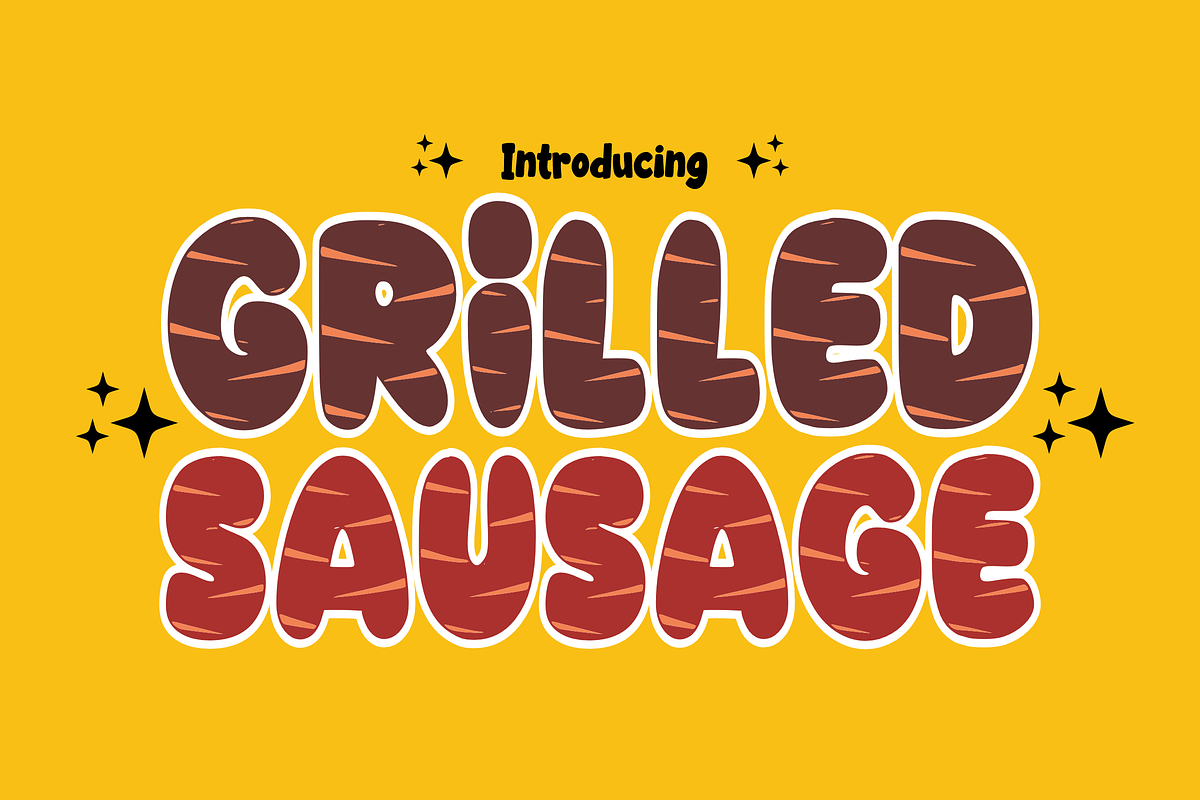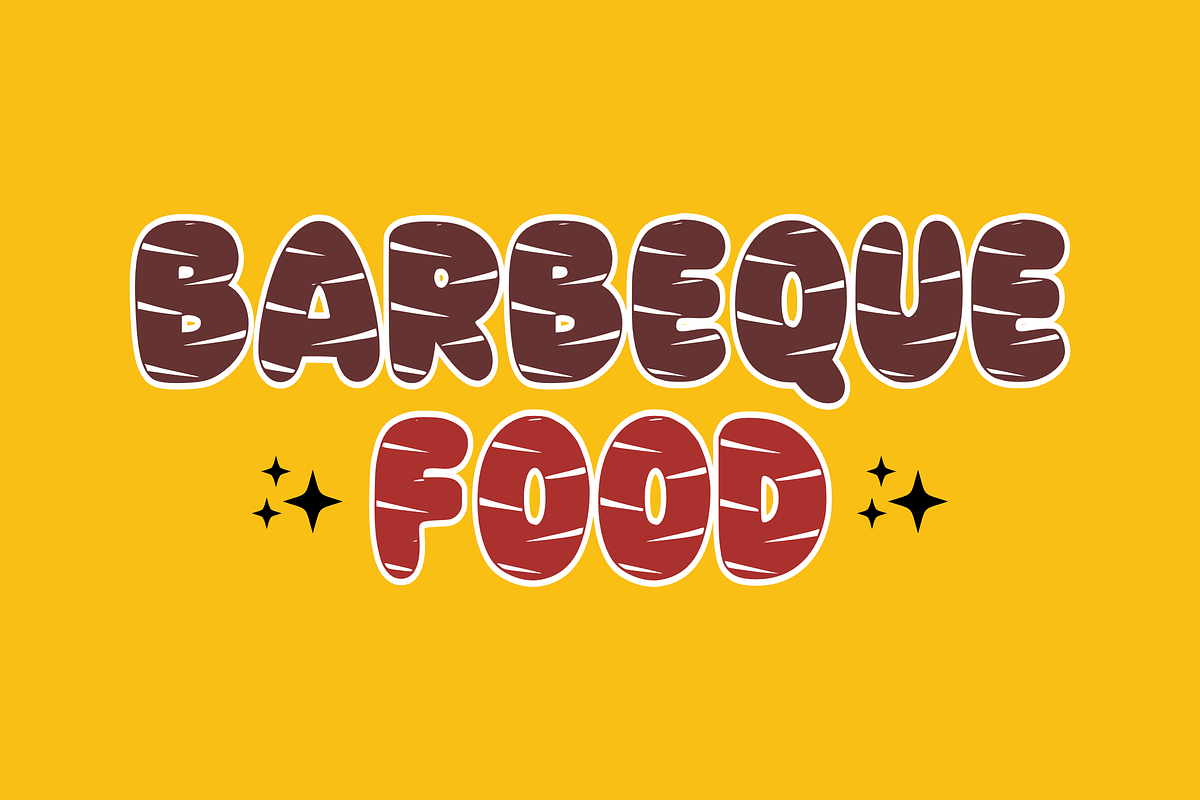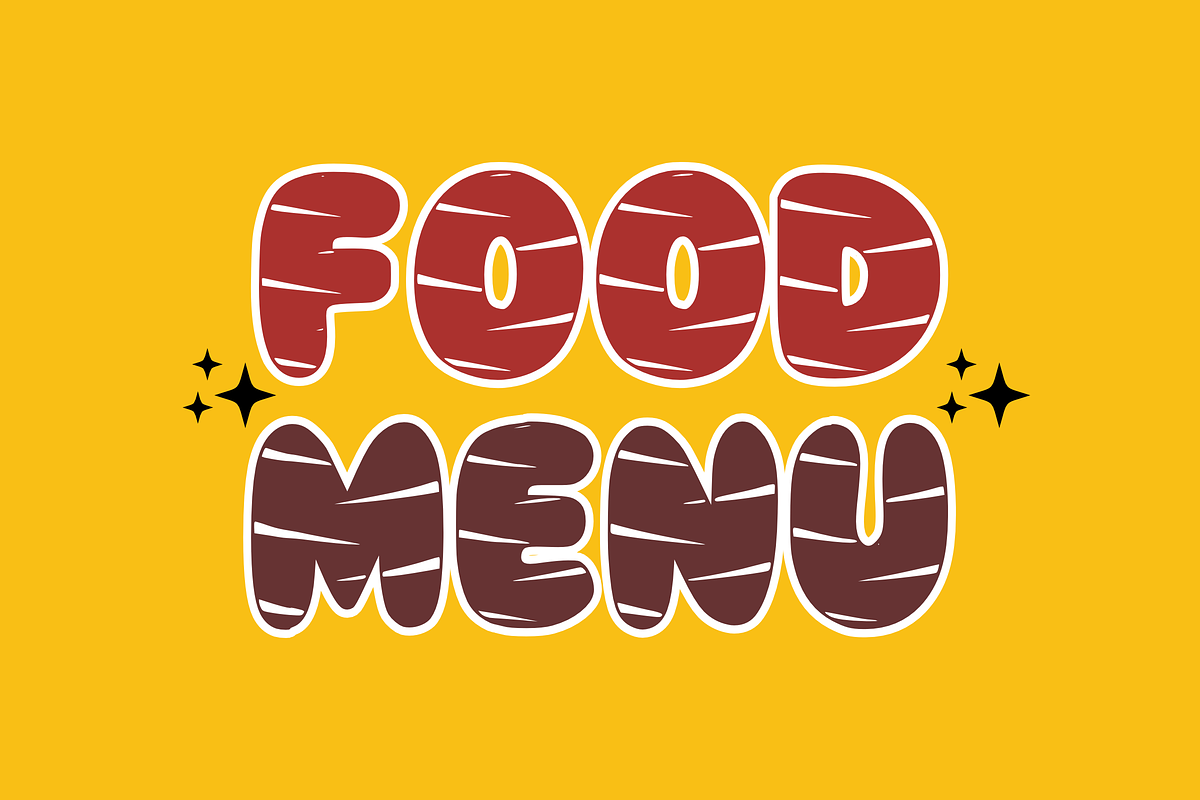
Grilled Sausage - Display Font
🌭 Grilled Sausage - Bold & Playful Display Font 🍟 Serve up some fun with Grilled Sausage! This deliciously bold display font features long, rounded, tube-like characters that mimic the smooth and bouncy shape of a classic sausage. Its high-contrast "cutout" style and thick outlines make it an eye-catching choice for any design that needs a friendly, energetic punch.
Perfect for food branding, kids' projects, or catchy headlines, Grilled Sausage is designed to be big, bold, and impossible to miss.
✨ Main Ingredients: Uppercase Alphabet: Thick, rounded, and juicy characters. Numbers 0-9: Perfectly matched bouncy numerals. Simple Symbols: Essential punctuation to spice up your designs. Bold Visibility: High-impact letters that pop on any background.